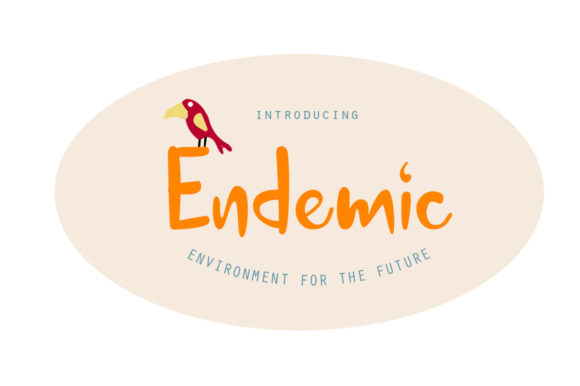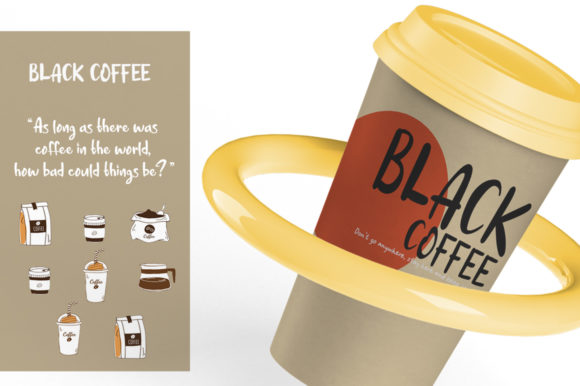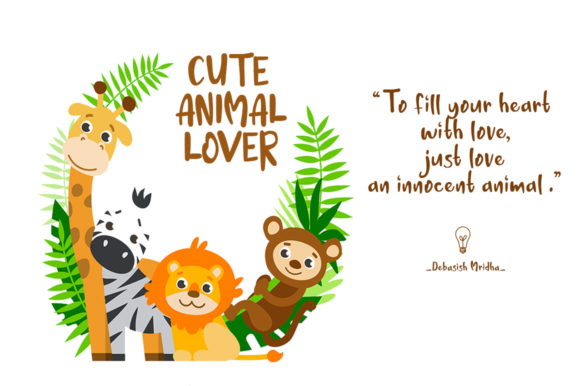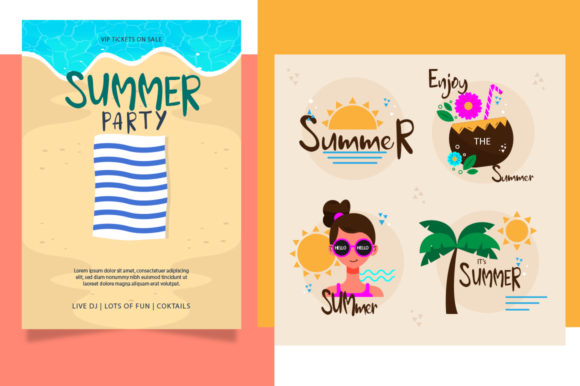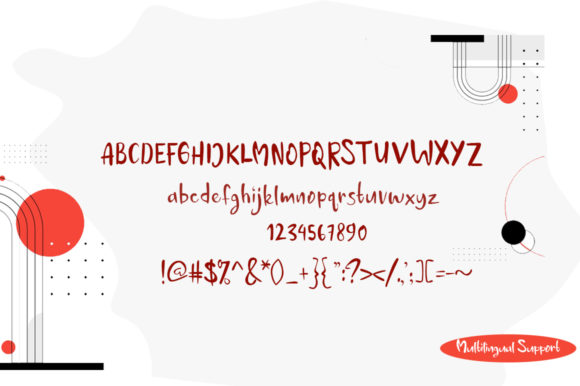
Introduction to Conversion Font
Have you ever stared at a blank canvas, desperately trying to find the perfect font to bring your creative vision to life? For designers, this moment can be a daunting task, especially when it comes to crafting unique logos, branding, and quotes that truly stand out. But what if I told you there’s a font that can make all the difference?
Meet the Conversion Font, a charming and quirky handwritten font that’s perfect for designers who crave high-quality, eye-catching typography. With its beautiful, one-of-a-kind touch, this font is a valuable resource for any creative project, whether you’re working on a personal design or a commercial client project.
Key Features of Conversion Font
- High-quality design: Conversion Font is designed with precision and care, making it perfect for any creative project.
- Unique design elements: Conversion Font boasts a distinctive and modern design, making it an excellent choice for creative projects.
- Perfect for digital use: With its high-quality design and transparent background, Conversion Font is ideal for use in digital design, including web, mobile, and print projects.
Honest Review: Conversion Font
As a designer, I’m always on the lookout for high-quality design resources that can elevate my creative projects. The Conversion Font is one such find, and I’m excited to share my honest review with you.
Here’s what works well:
- ✨ High-quality design: The font is crisp, clean, and visually appealing, making it perfect for any creative project.
However, I do have a few caveats:
- ⚠️ Limited font styles: While the font itself is great, the style options are somewhat limited, which might not be ideal for designers who like to experiment.
- ⚠️ Not ideal for complex typography: The font is best used for simple typography, and might not be the best choice for complex, multi-font projects.
Overall, I’m impressed with the Conversion Font, and I think it’s a great addition to any designer’s toolkit. While it may have some limitations, its high quality and free download make it a solid choice for creative projects.
Conversion Font is commonly used in graphic design, digital marketing, and creative projects that require a high-quality font. It’s ideal for logos, brochures, business cards, and other design elements that need a unique and modern look.
To get the most out of Conversion Font, experiment with different font sizes, colors, and combinations to create a visually appealing design. You can also use it in conjunction with other design resources to add depth and complexity to your project.